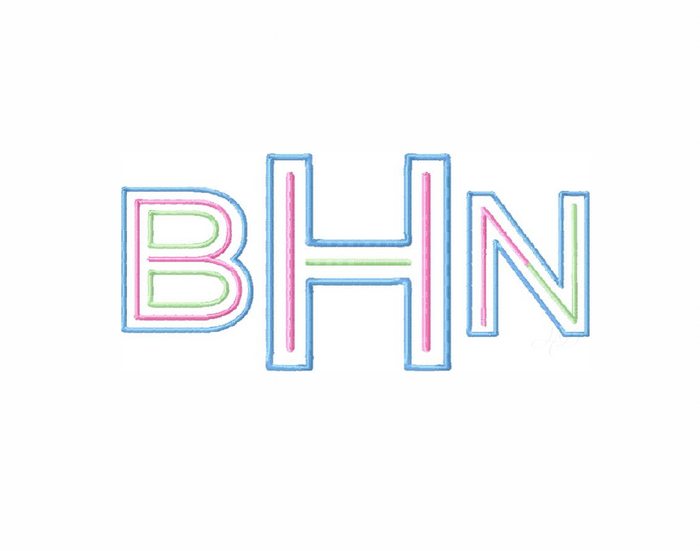
Neon Signage Satin Stitch 4x4 Font Package
Elevate your crafting projects with the Neon Signage Satin Stitch 4x4 Font Package. This versatile embroidery font includes a vibrant three-color design that’s perfect for adding a unique touch to your creations. With six sizes available, all fitting within a 4x4 embroidery hoop, this package is ideal for any DIY enthusiast.